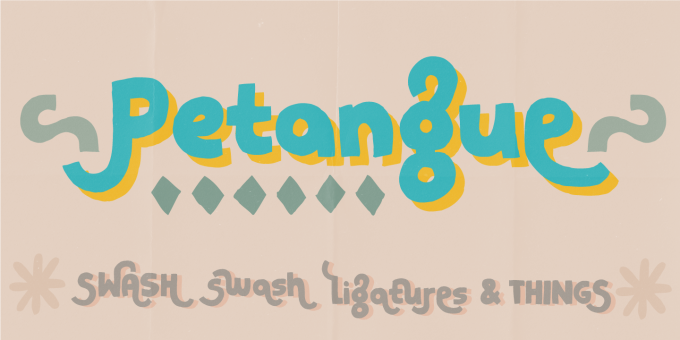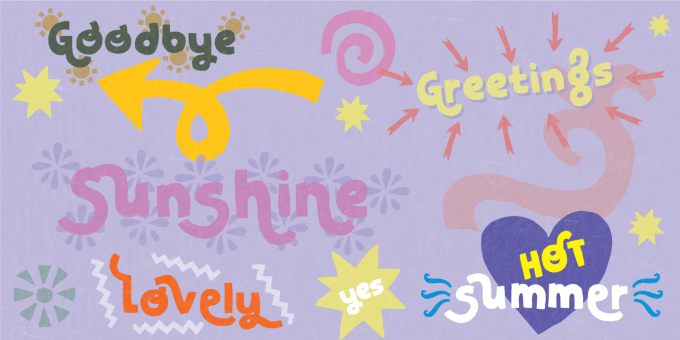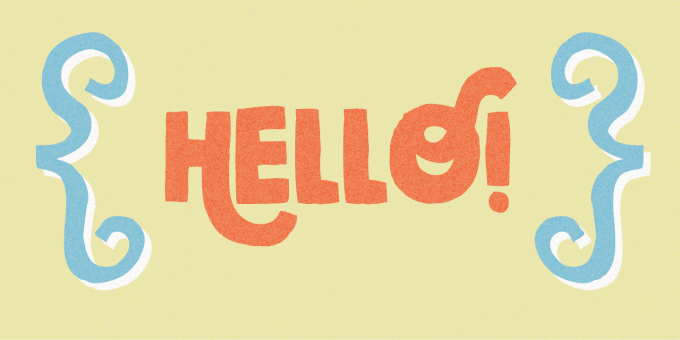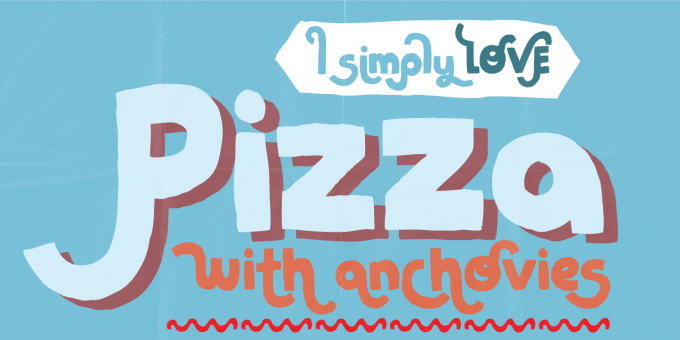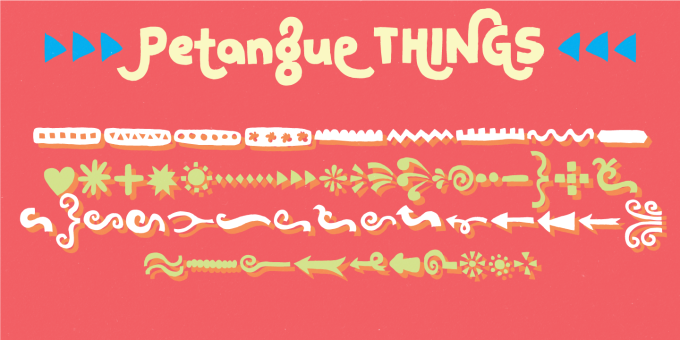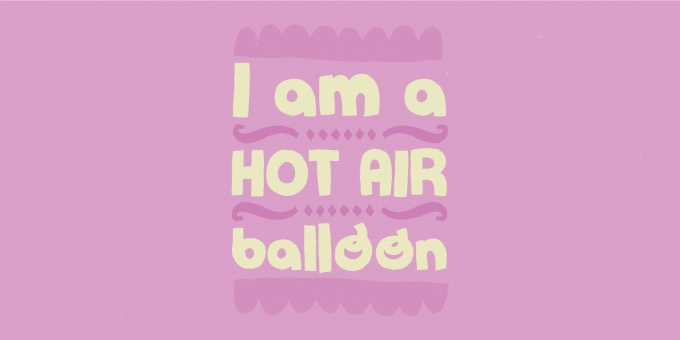
Petangue
Petangue is my playful font. It is 100% organic and made by hand. Petangue has got a funny look - it’s not really masculine, and not really feminine, but goes along well with a lot of different themes. This could be invitations, posters, headlines or just serious/traditional/funny/weird ... (you name it!) quotes!
Petangue has got a swash ligature for each UPPER- and lowercase letter, and ligatures for double lettering. But the fun doesn't stop here! Along comes 62 ornaments you can use it your designs - just like Petangue, it also has got that feeling of something true handmade!